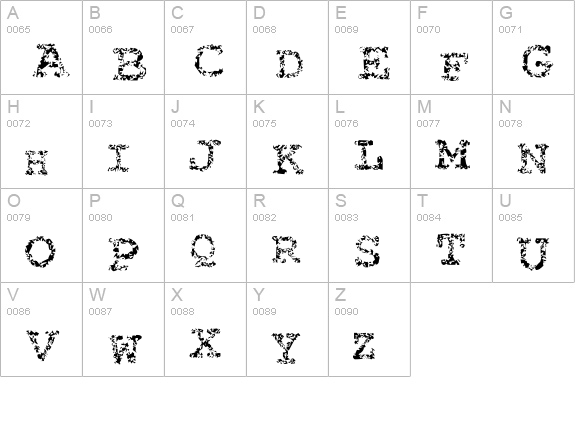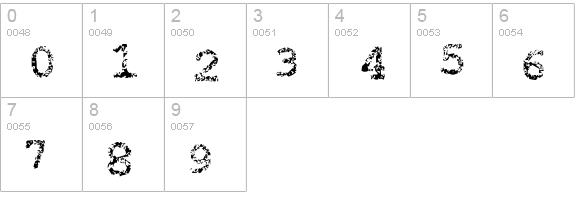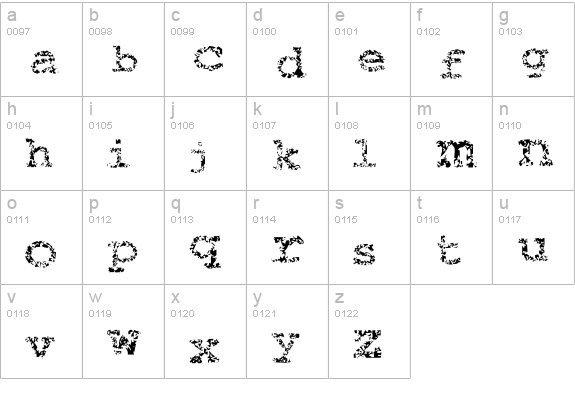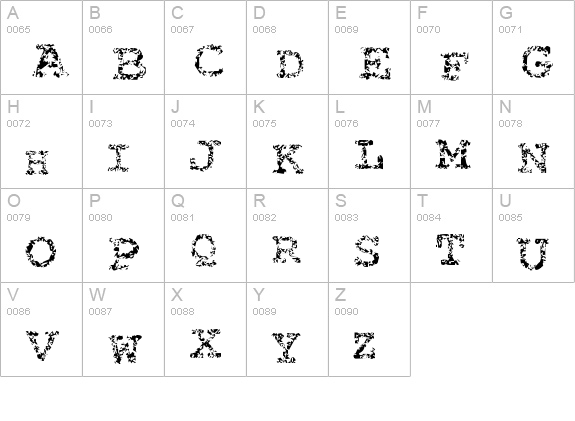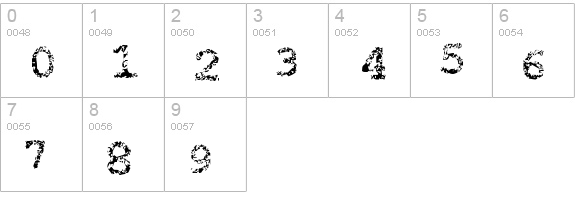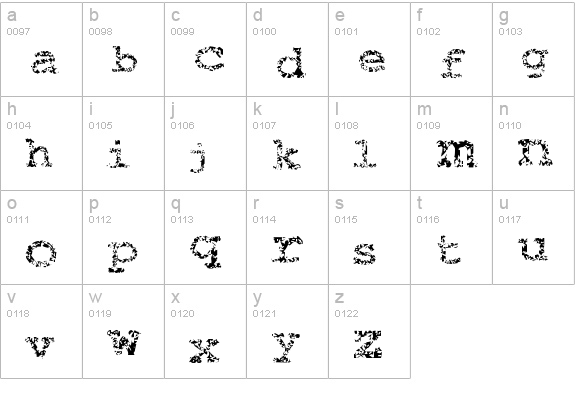
Typewriter from hell Font Details
Introducing the extraordinary Typewriter from Hell font, a mesmerizing display font that will transport you into a realm of dark enchantment. This font embodies the essence of all things gothic and macabre, perfect for those seeking to infuse their projects with an eerie atmosphere. Typewriter from Hell boasts an intricate design that captures the essence of vintage typewriters, with a sinister twist. Each letter is meticulously crafted to exude an aura of suspense and mystery, making it an ideal choice for horror-themed designs, Halloween invitations, or chilling movie posters. What sets Typewriter from Hell apart is not only its striking appearance, but also its accessibility. This remarkable font is freely available to download at FontsMarket.com, ensuring that anyone can harness its haunting allure to add a touch of darkness to their creations. Whether you're a professional designer looking to evoke a sense of horror or an enthusiast seeking to explore your artistic boundaries, this font is the perfect tool to unleash your creativity. Indulge in the devilish intricacies of Typewriter from Hell font and witness how it transforms your projects into haunting masterpieces. With its free availability and limitless potential, this font is an invaluable resource for those who dare to venture into the depths of their imagination. Download Typewriter from Hell today and let its wicked essence take your designs to an entirely new level of darkness.